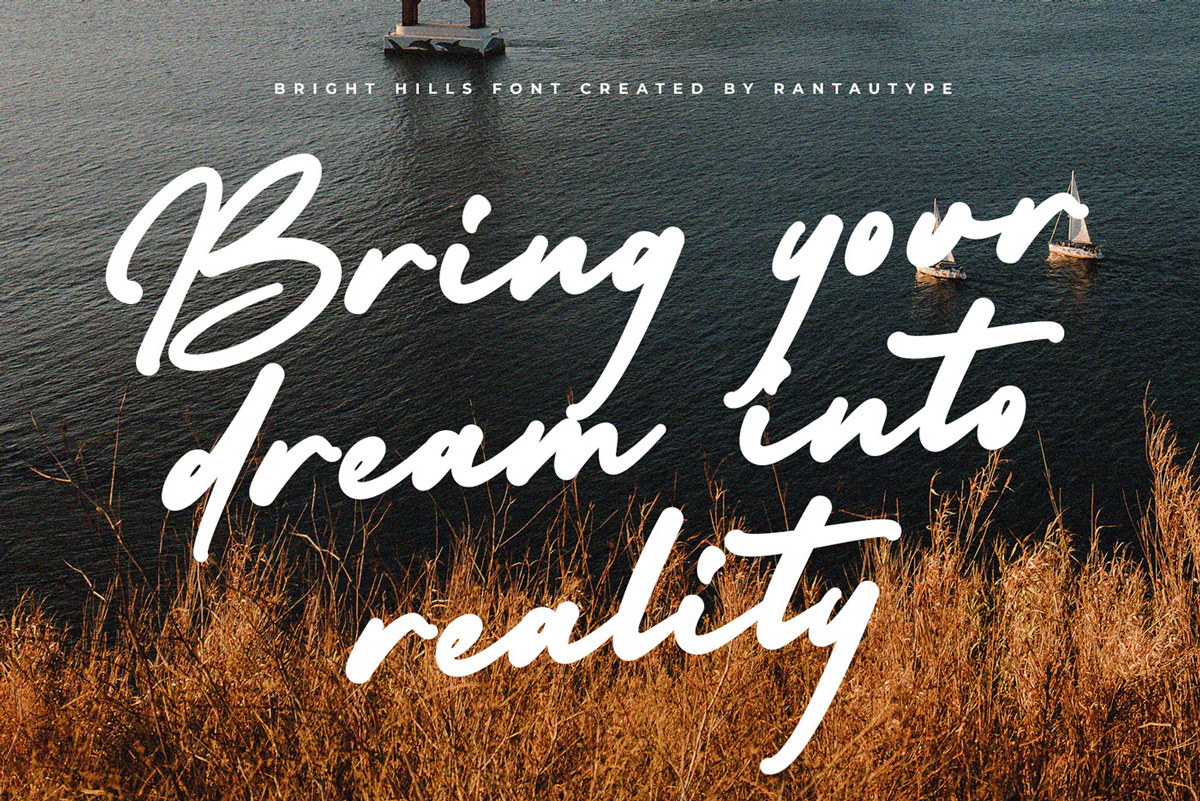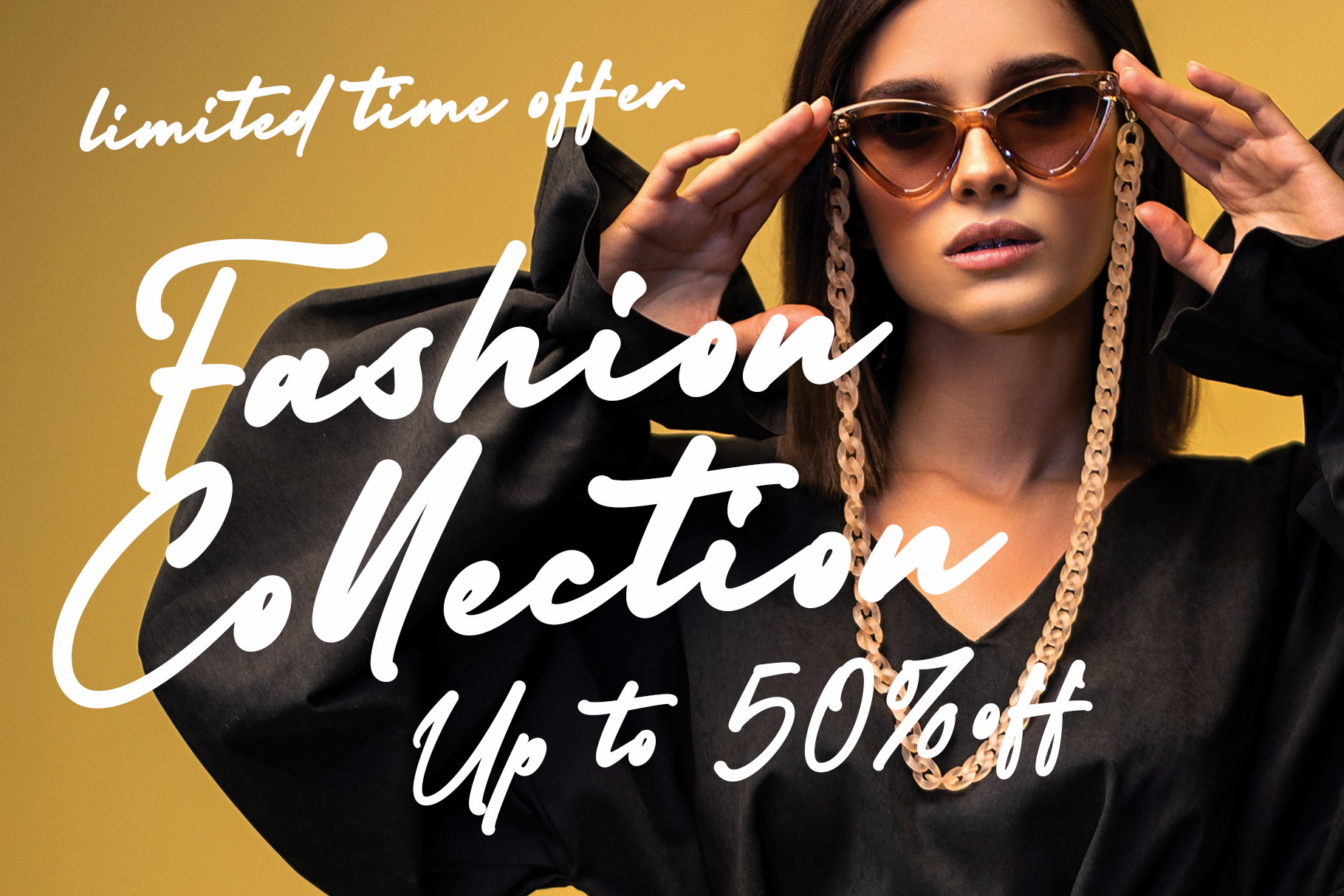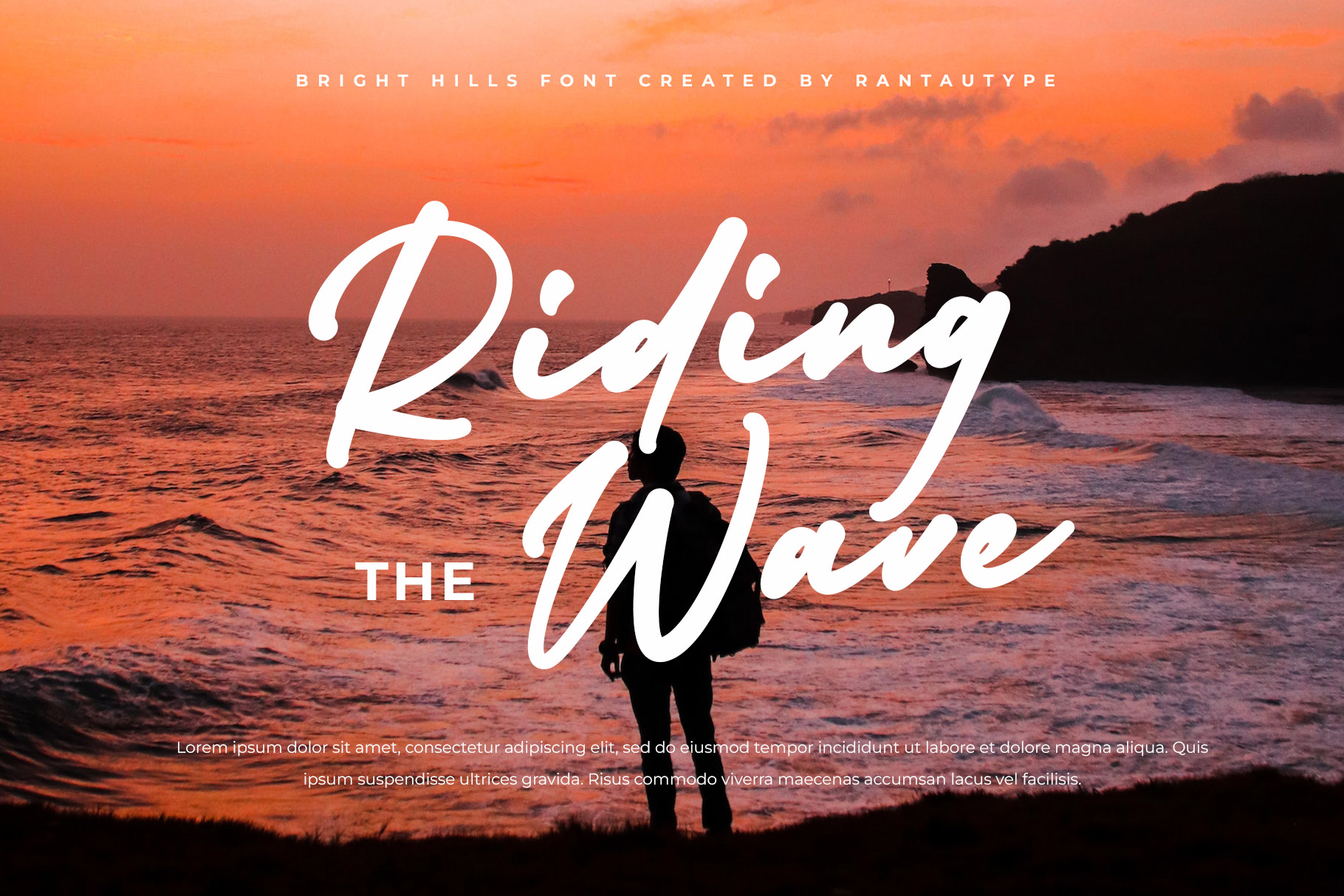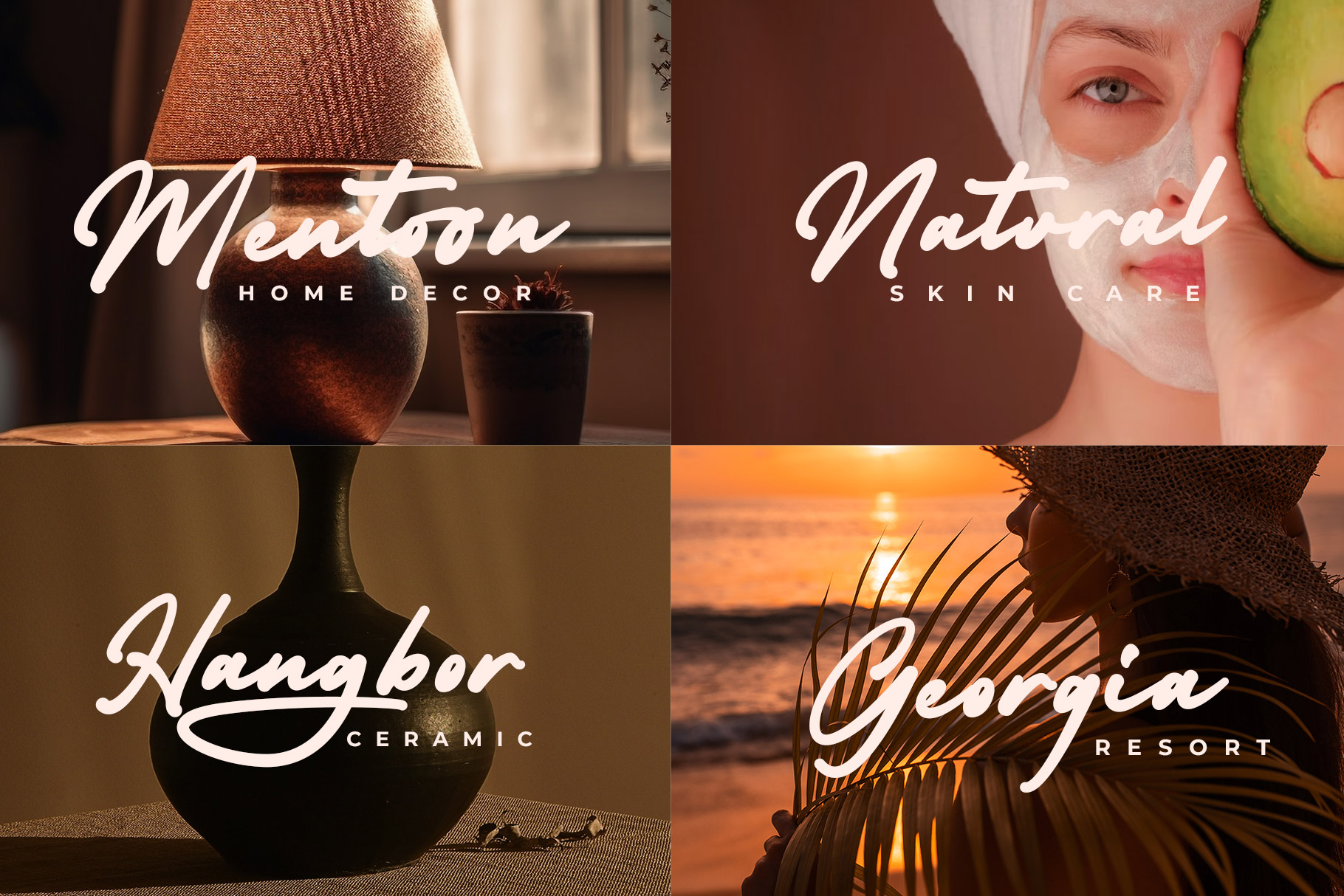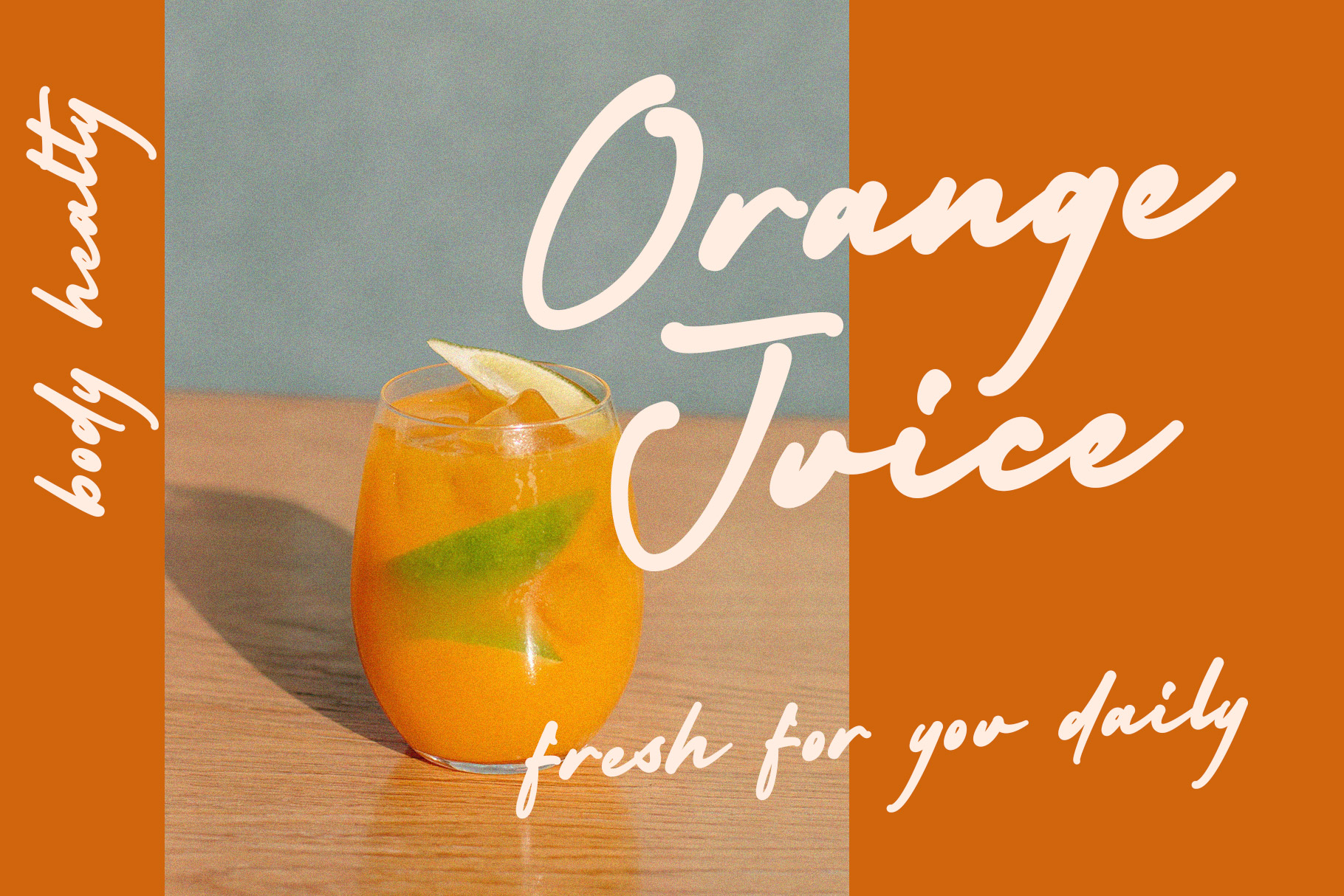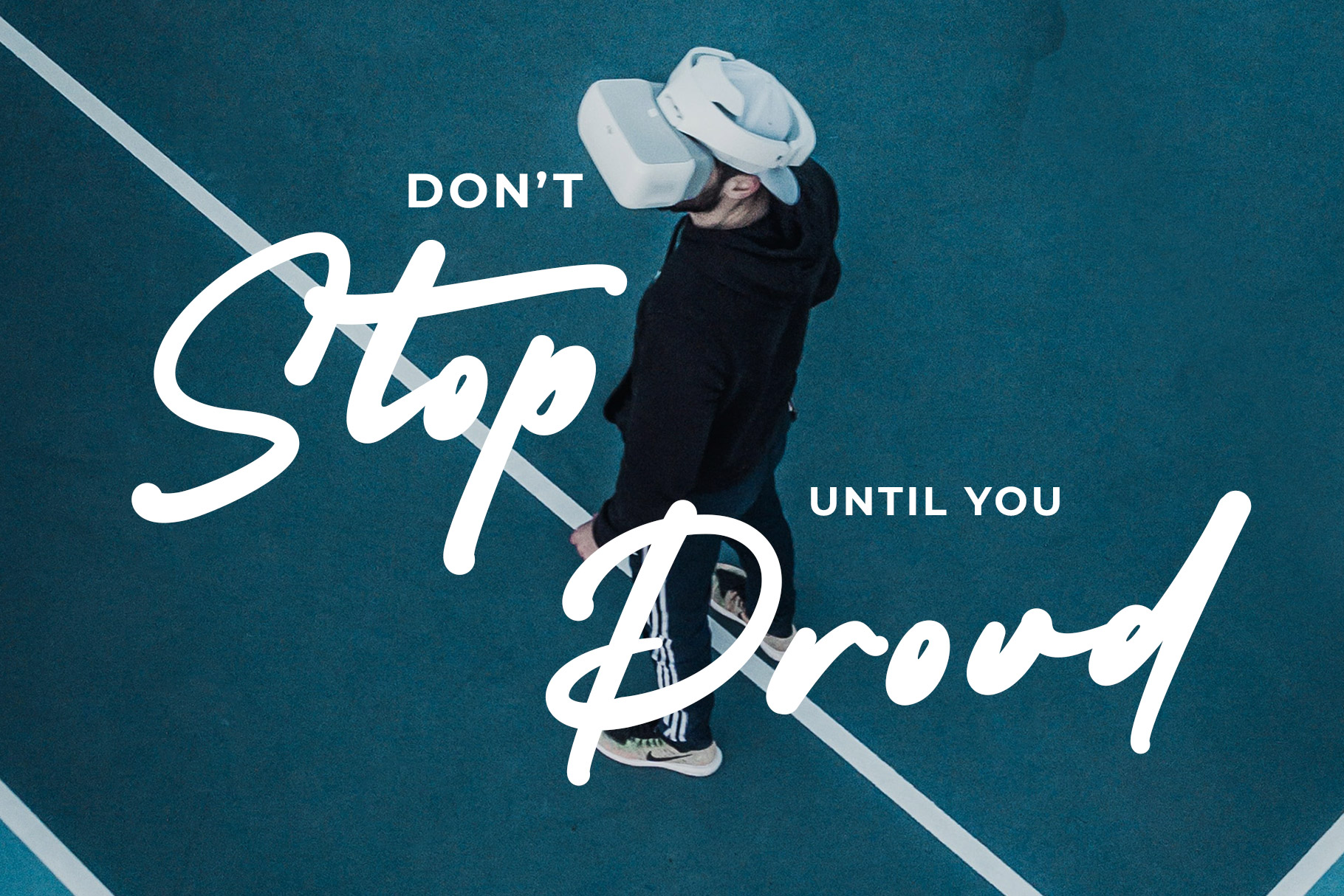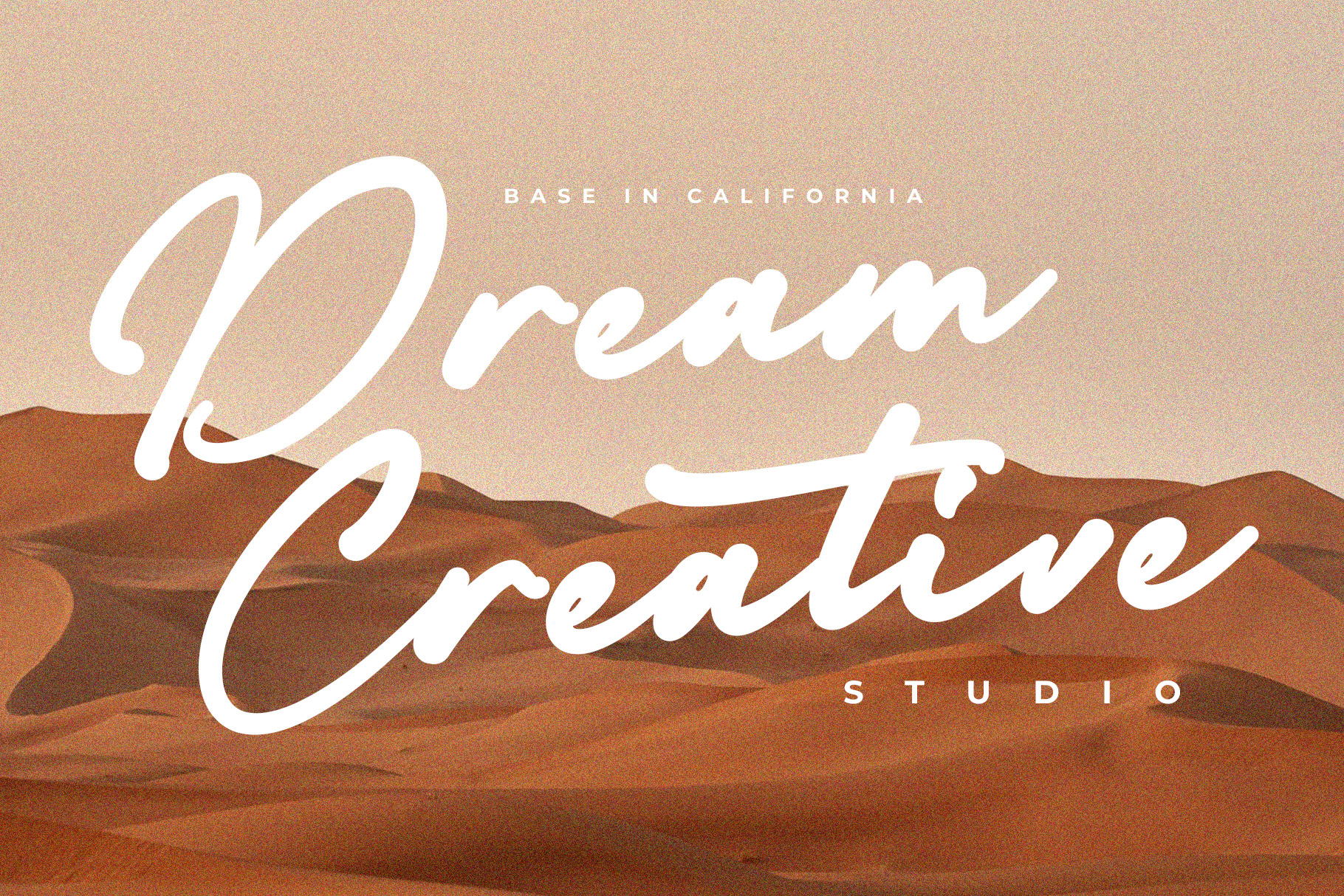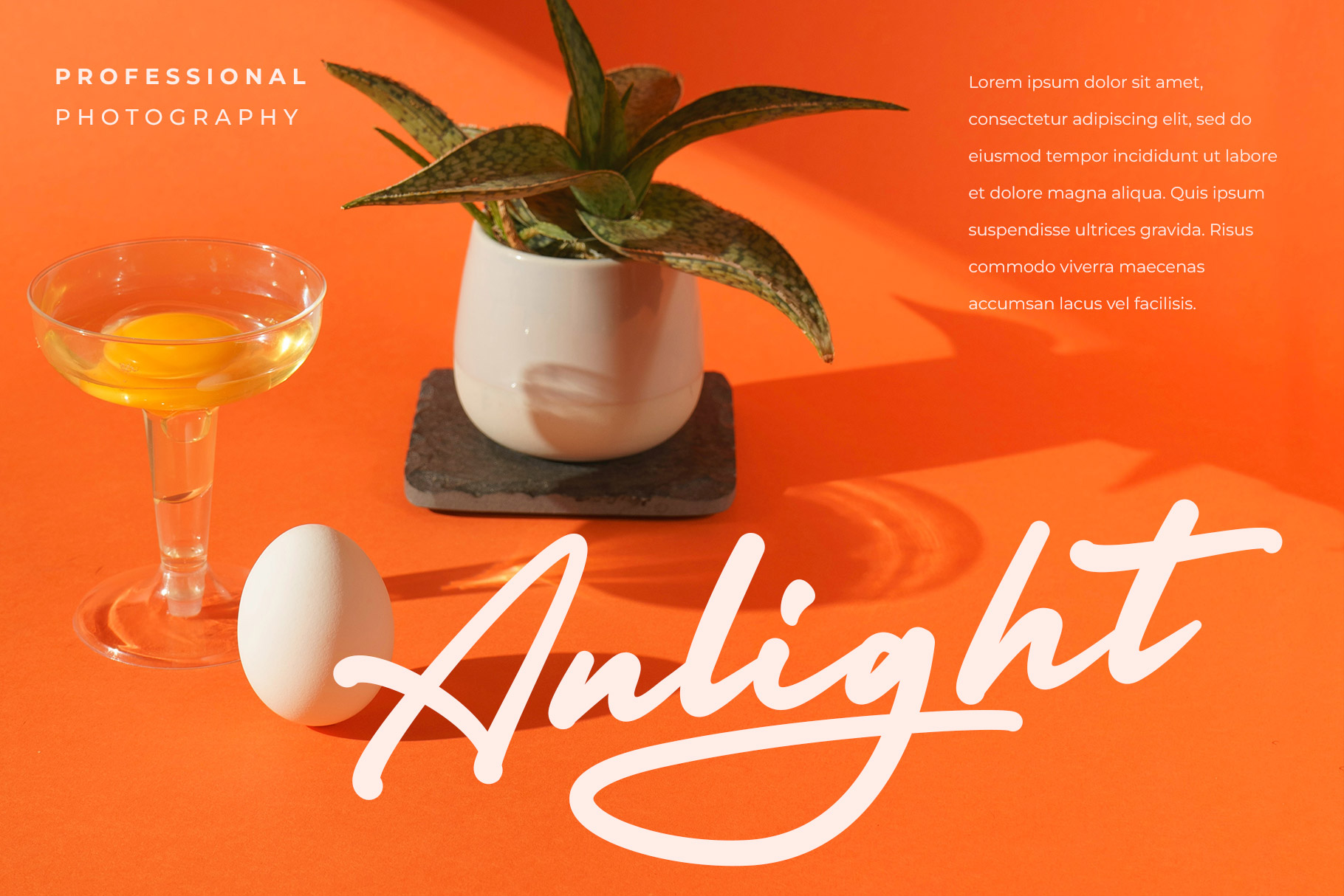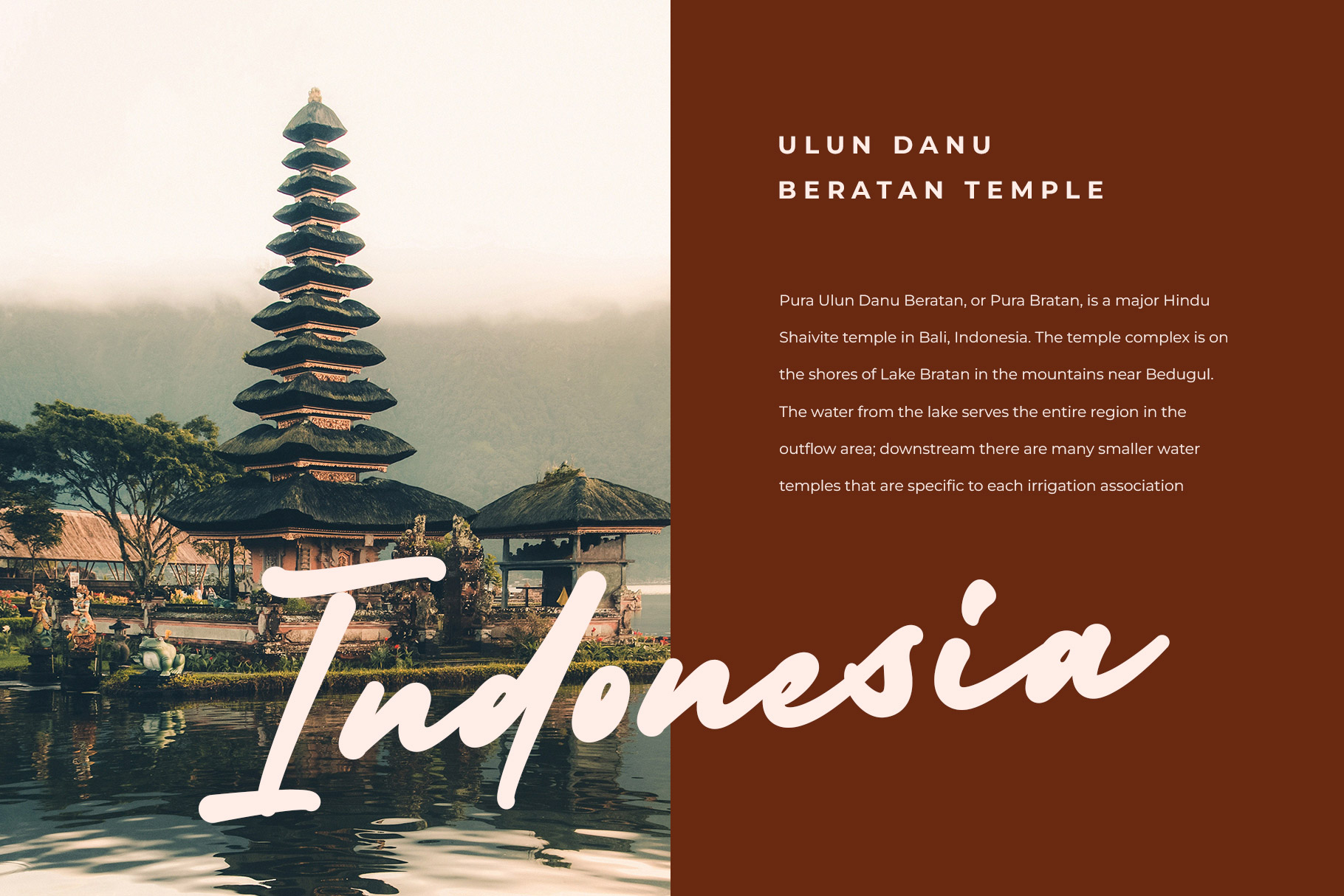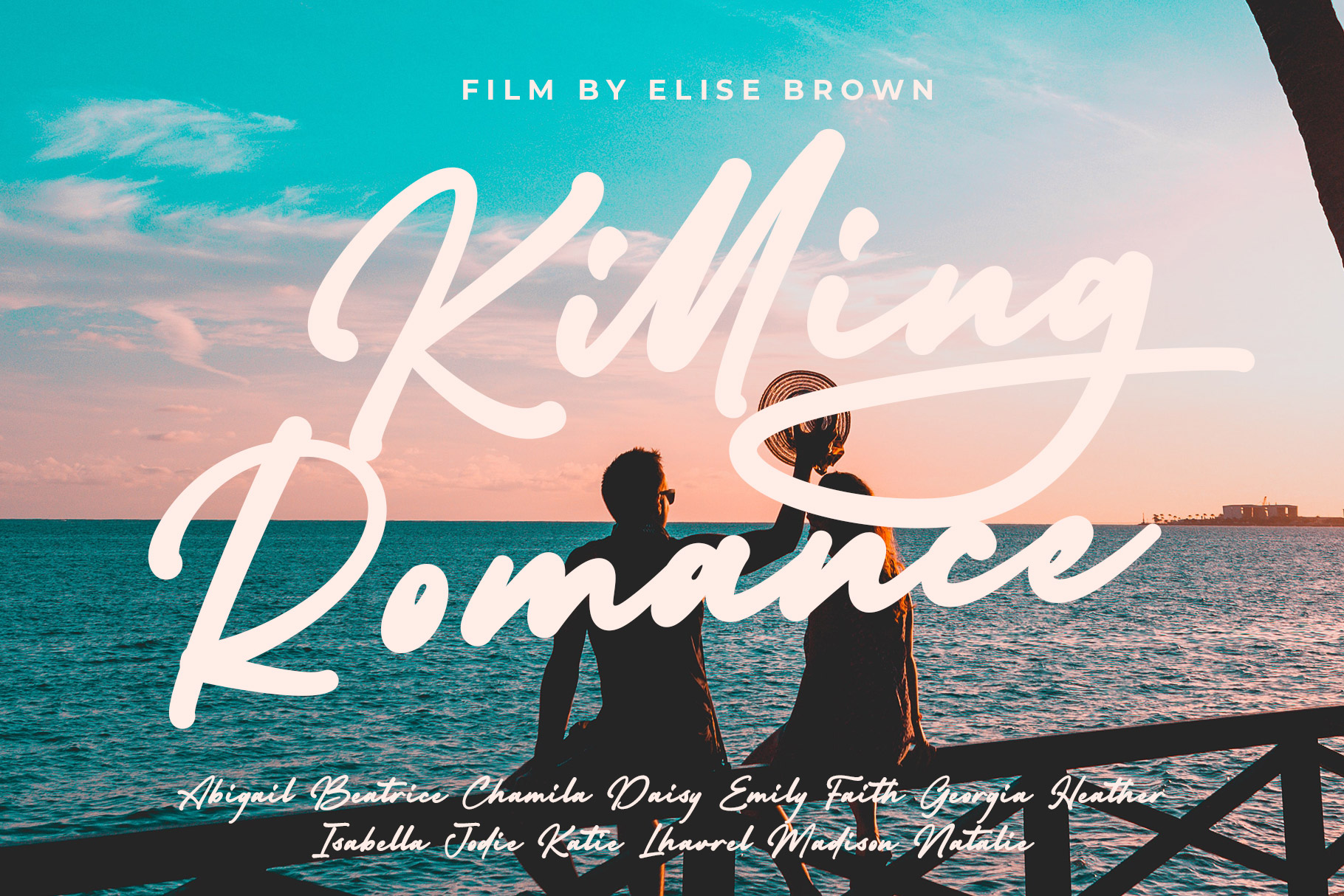
Bright Hills Modern Handwritten Font
Bright Hills –  modern style font which can be interpreted professional. we keep this font looks modern, readable, stylish, catchy and easy to use.